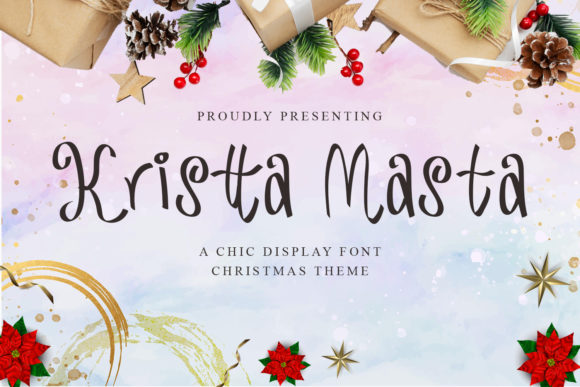
Step into a world of boundless beauty and grace with Kristta Masta, a script font family that dances off the page, stirring emotions and igniting imagination. Its meticulously crafted curves and delicate flourishes capture the essence of timeless romance, while its playful spirit adds a touch of whimsy to any project.
Kristta Masta is the brainchild of densudesign, a visionary foundry known for their exquisite attention to detail. Their passion for creating fonts that transcend the ordinary shines through in every stroke of Kristta Masta, making it a true masterpiece of digital calligraphy.
As you explore the depths of this font family, you'll discover a diverse range of weights and styles, providing endless opportunities for creative expression. From the light and airy Finesse to the bold and confident Valiant, Kristta Masta adapts seamlessly to your unique vision, adding a touch of elegance and sophistication to every design.
Whether you're crafting logos that command attention, designing invitations that exude charm, or creating social media posts that captivate your audience, Kristta Masta is your perfect companion. Its enchanting aura brings a sense of magic to every project, leaving an indelible mark on the hearts of those who encounter it.
With Kristta Masta, the possibilities are truly limitless. Let your imagination soar as you craft designs that resonate with beauty and evoke a sense of wonder. This font family is an investment in your creative journey, promising to elevate your projects to new heights of excellence.